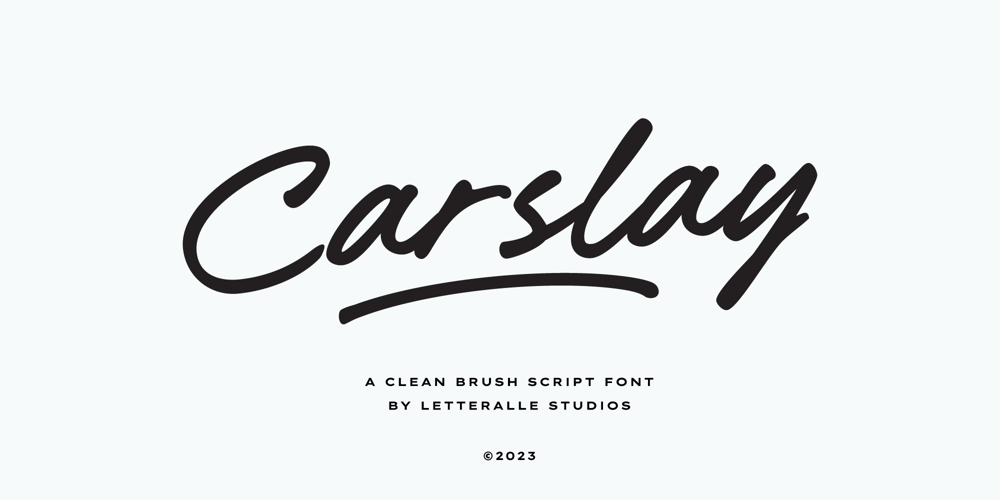
Carslay Font Family was designed by Annas Alam Yahya and published by Letteralle. Carslay contains 1 styles and family package options. Introducing, Carslay. – a captivating font meticulously crafted with a brush pen, bringing forth the essence of clean and natural strokes. Embrace the organic flow of each character, evoking a sense of authenticity and artistic flair. With its charming underline swashes, effortlessly accessed by simply typing “_1” to “_7”, Carslay, adds a touch of elegance and sophistication to your designs. Whether you’re crafting invitations, quotes, or logos, this font promises to infuse your creations with a seamless blend of grace and originality. Unleash your creativity with Carslay and watch your projects come to life with an enchanting finesse!.Enjoy Designing!Thanks!Letteralle Studios